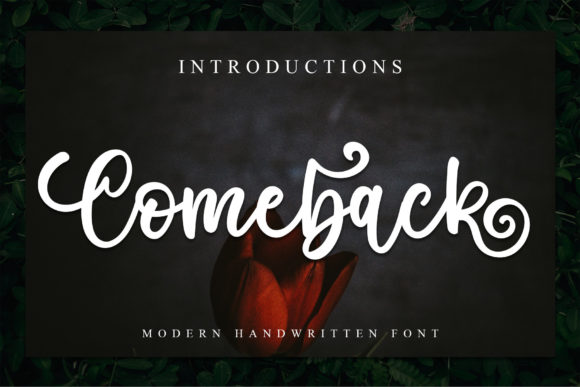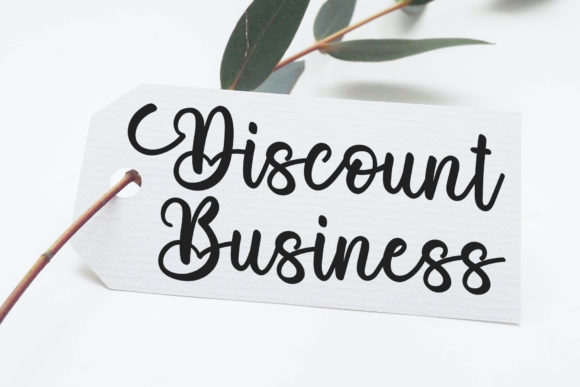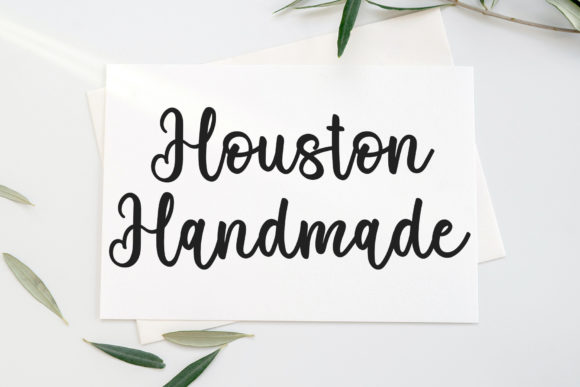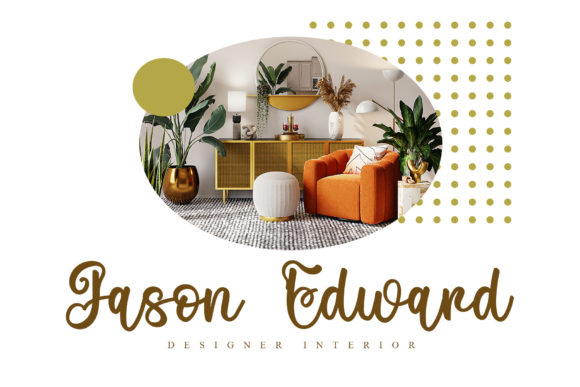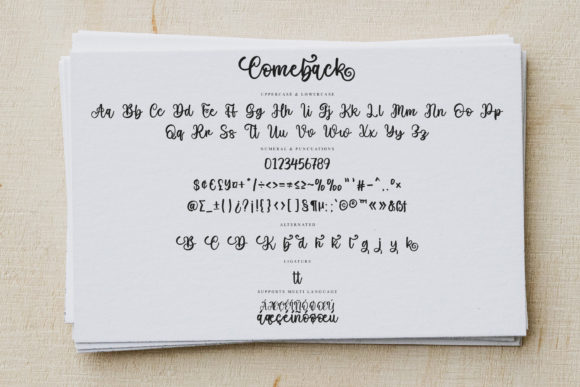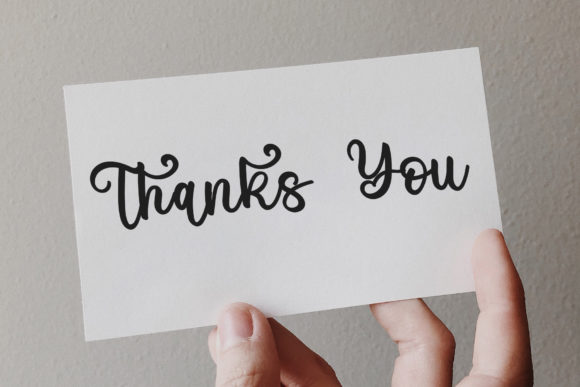
Comeback Font
About Comeback Font
Comeback is a beautiful and whimsical script font, characterized by its smooth curves that lend an enchanting quality to the letterforms. Tailored for fashion branding and editorial designs, this font adds a touch of elegance and playfulness to your projects. When confidently incorporated, you can expect outstanding results that capture attention and elevate the overall aesthetic.
The font’s whimsical script style brings a sense of charm and uniqueness, making it particularly well-suited for fashion-related applications. Whether you’re working on clothing labels, editorial layouts, or promotional materials, Comeback effortlessly infuses a delightful and stylish flair.
Comeback’s smooth curves contribute to a flowing and cohesive design, enhancing its visual appeal. The font’s versatility makes it suitable for a range of creative projects beyond fashion, allowing it to adapt seamlessly to various design contexts where a touch of whimsy is desired.
An additional advantage lies in Comeback being PUA encoded. This feature facilitates easy access to a plethora of amazing glyphs and ligatures, enhancing the font’s flexibility and creative potential. Designers can effortlessly incorporate unique characters and decorative elements, further tailoring the font to their specific needs.
In summary, Comeback goes beyond being just a font; it’s a design element that brings beauty and whimsy to your projects. With its smooth curves and PUA encoding for enhanced creativity, this font is an excellent choice for fashion branding, editorial designs, and any project where a touch of enchantment is desired.